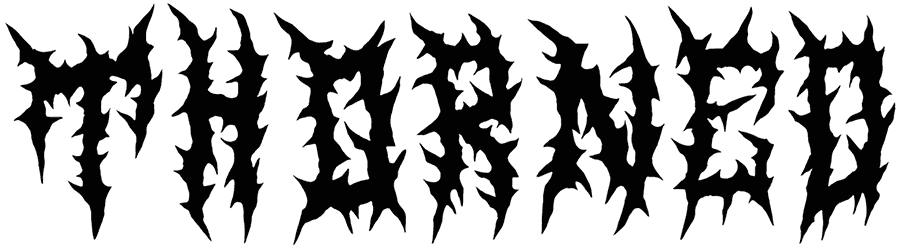
Thorned Font
Okay, maybe it’s not very easy on the eyes, this death metal font called Thorned, because of all those sharp things coming out of it. But you have to admit, it could never have sounded so tough if it weren’t for the same thorns.
It may suck the life out of your words and replace it with dried, dangerous cactuses, but it’s only then that you’ll know your Halloween party posters look threatening enough or your warnings come across as serious.